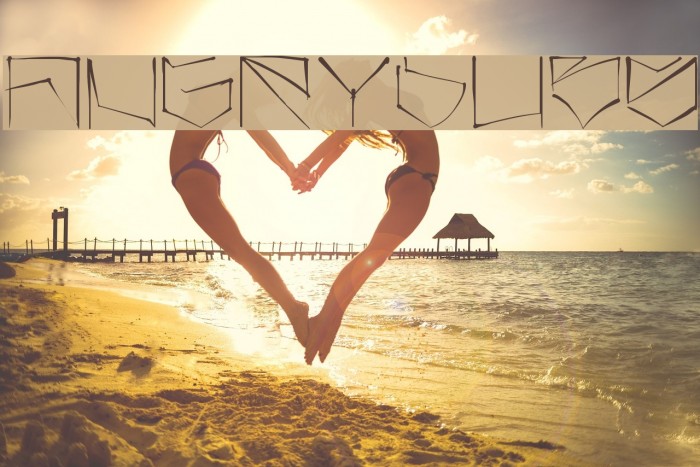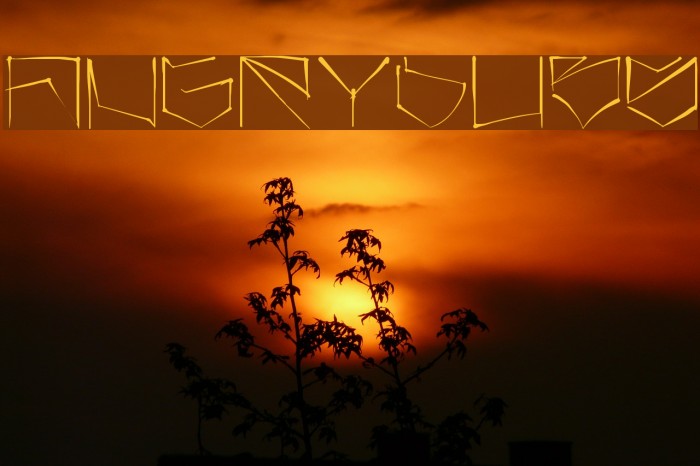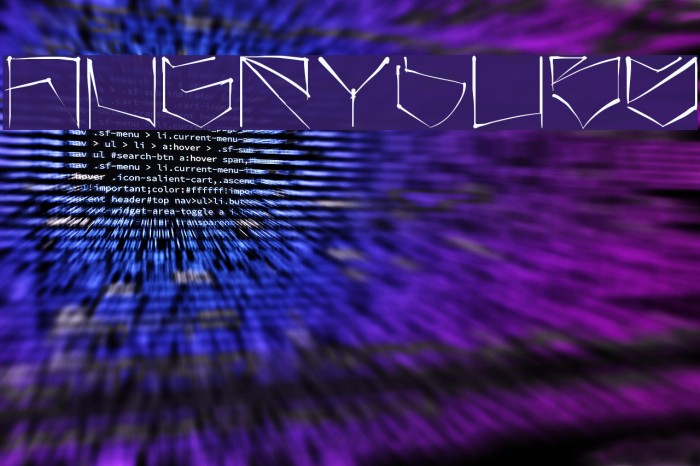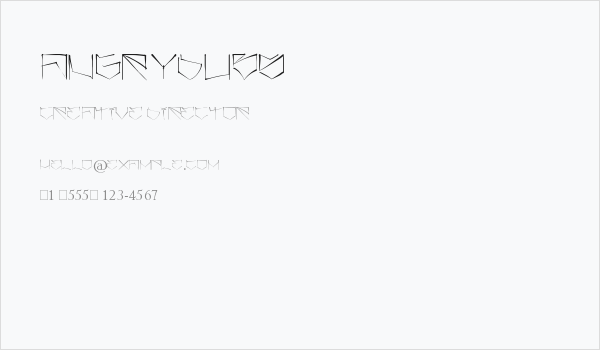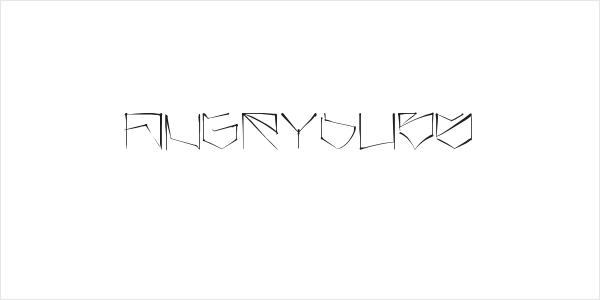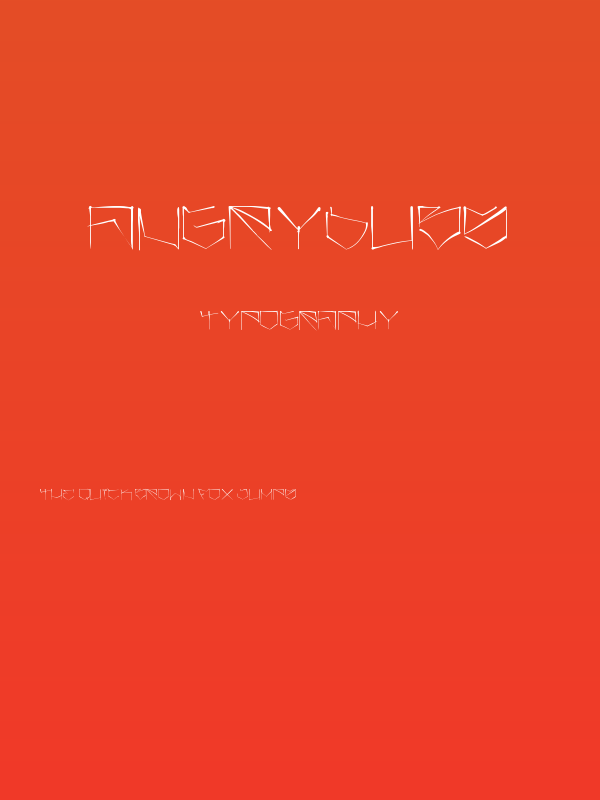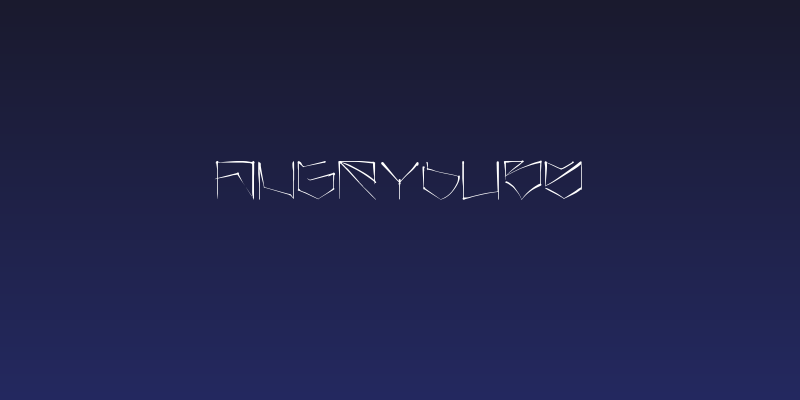
angrydubs Font
angrydubs Description
This font features a highly stylized and angular design, with sharp, jagged edges that give it a unique, edgy appearance. The uppercase letters are particularly striking, with a geometric, almost abstract form that suggests a sense of movement and energy. The lowercase letters maintain this angular style, creating a cohesive look across the alphabet. The numerals are bold and clear, contrasting with the more intricate letterforms. Special characters are included, adding versatility to the font. This design is ideal for projects that require a modern, unconventional aesthetic.
| Proposed Projects | Ideal for album covers, posters, and branding that seeks a bold, modern look. |